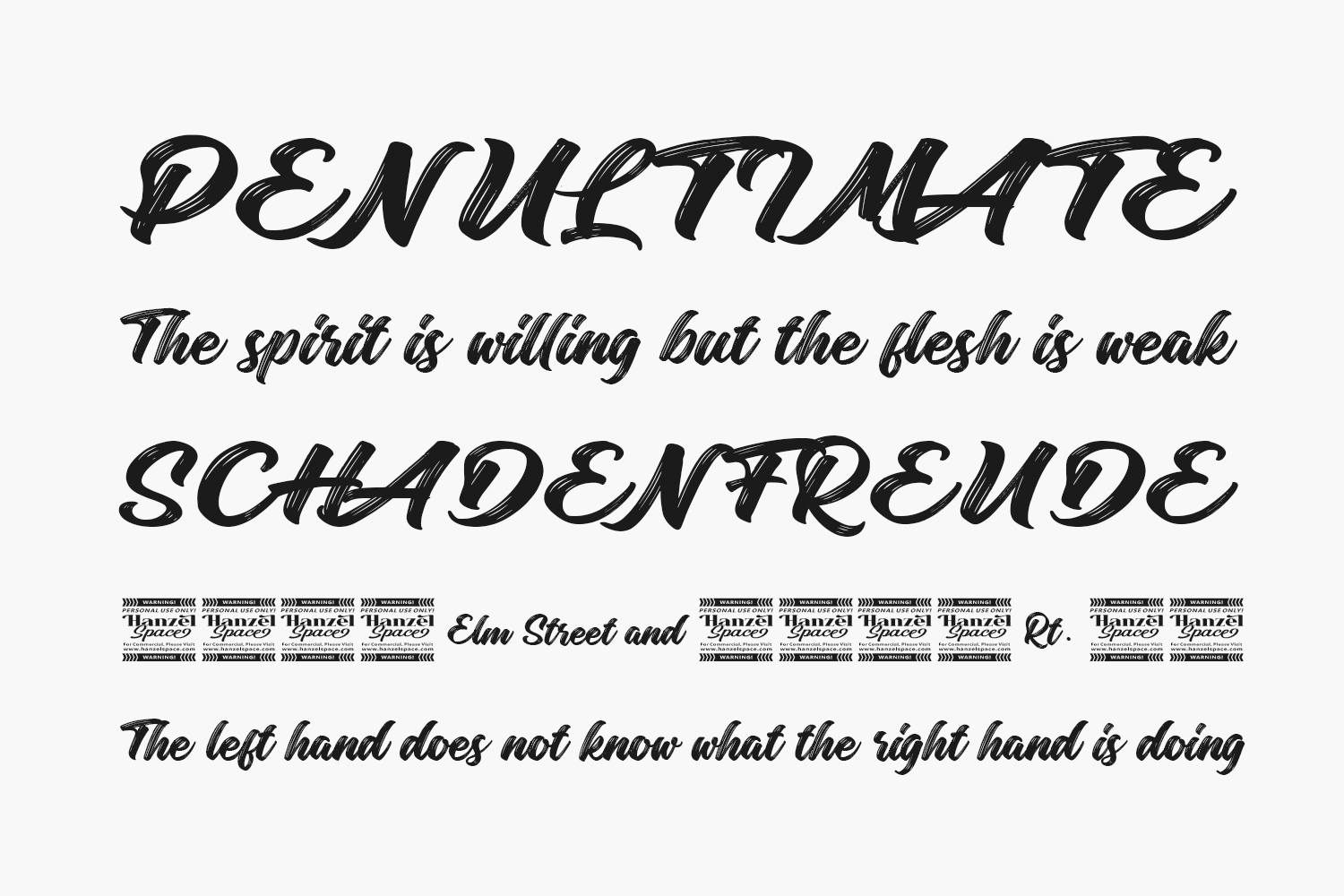
Margadeth Free Font is a gorgeous and bold handwritten font, crafted to give your headlines and logotype projects a retro touch. Margadeth Free Font is a demo and free for personal use only. Please purchase the full version for commercial use.